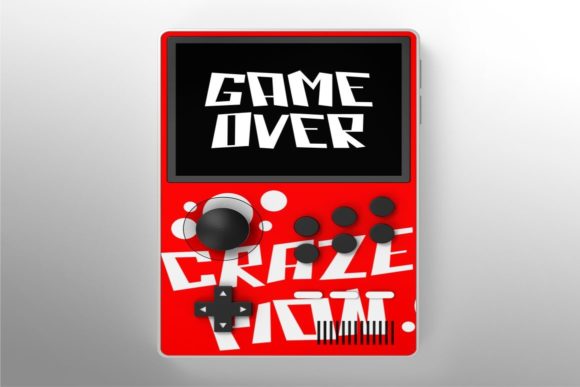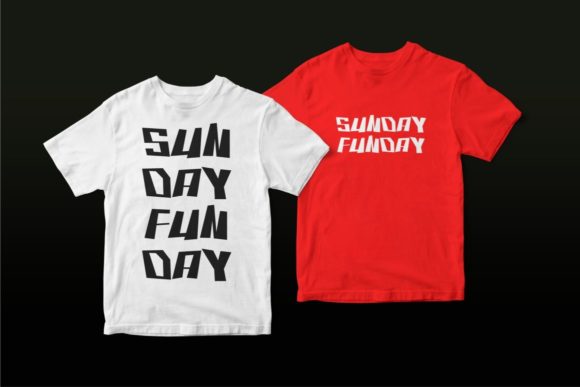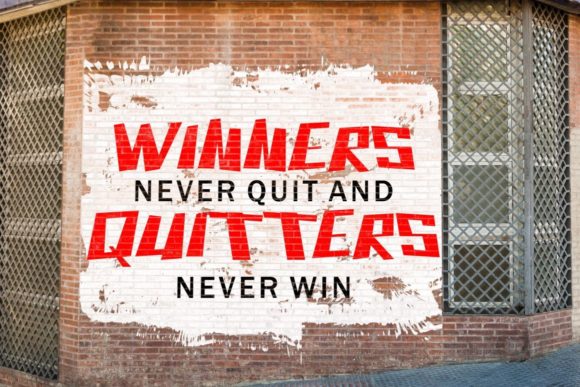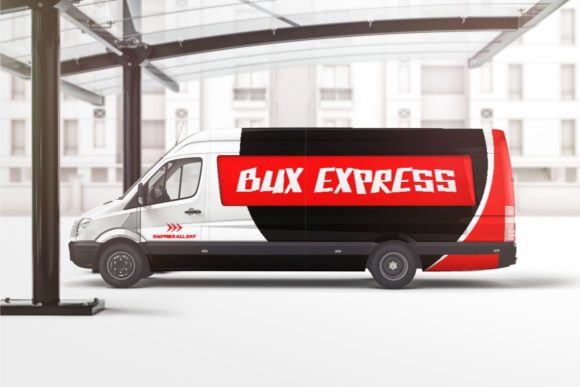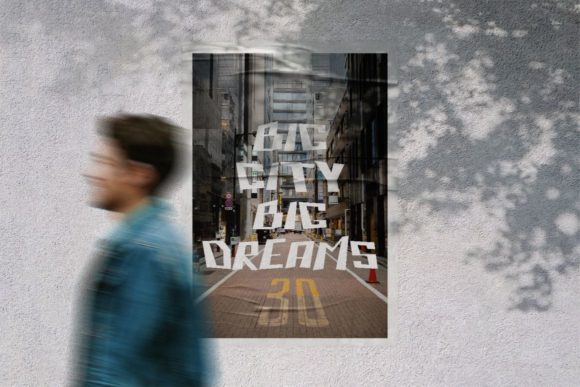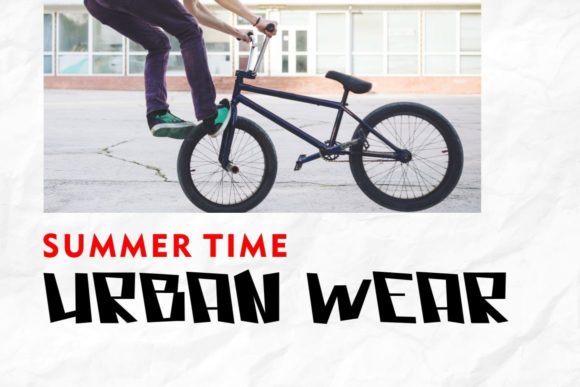
Introduction to Hoicky Font
Hoicky is a cool, asymmetrical and aggressive display font.
It works well on designs related to speed, sports or both The only limit is your imagination.
Key Features of Hoicky Font